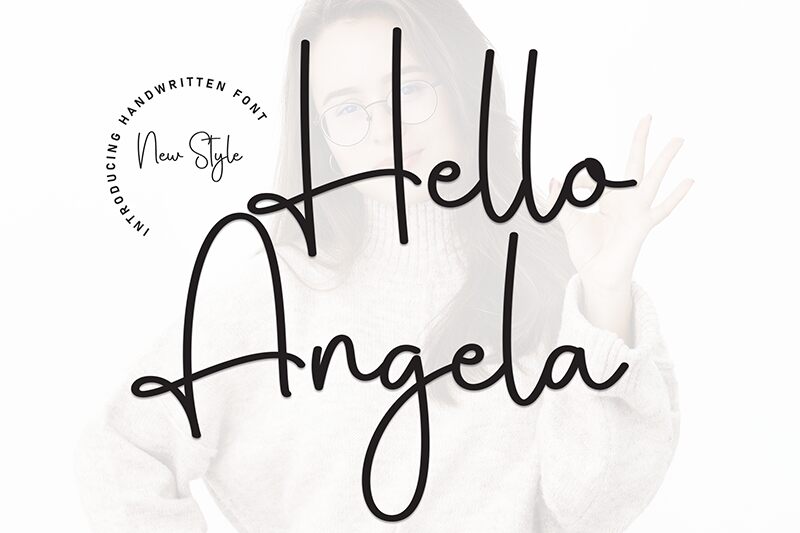
Hello Angela
Hello Angela font by Scratchones is a light handwritten script with casual elegance. This typeface has a modern flair with flowing structures and an approachable feel. It’s the optimal choice for contemporary applications that need a genuine and personal touch.
This free handwritten font is ideal for quotes, greeting cards, wedding invitations, logos, packaging, labels, flyers, posters, headlines, fashion projects, and more.